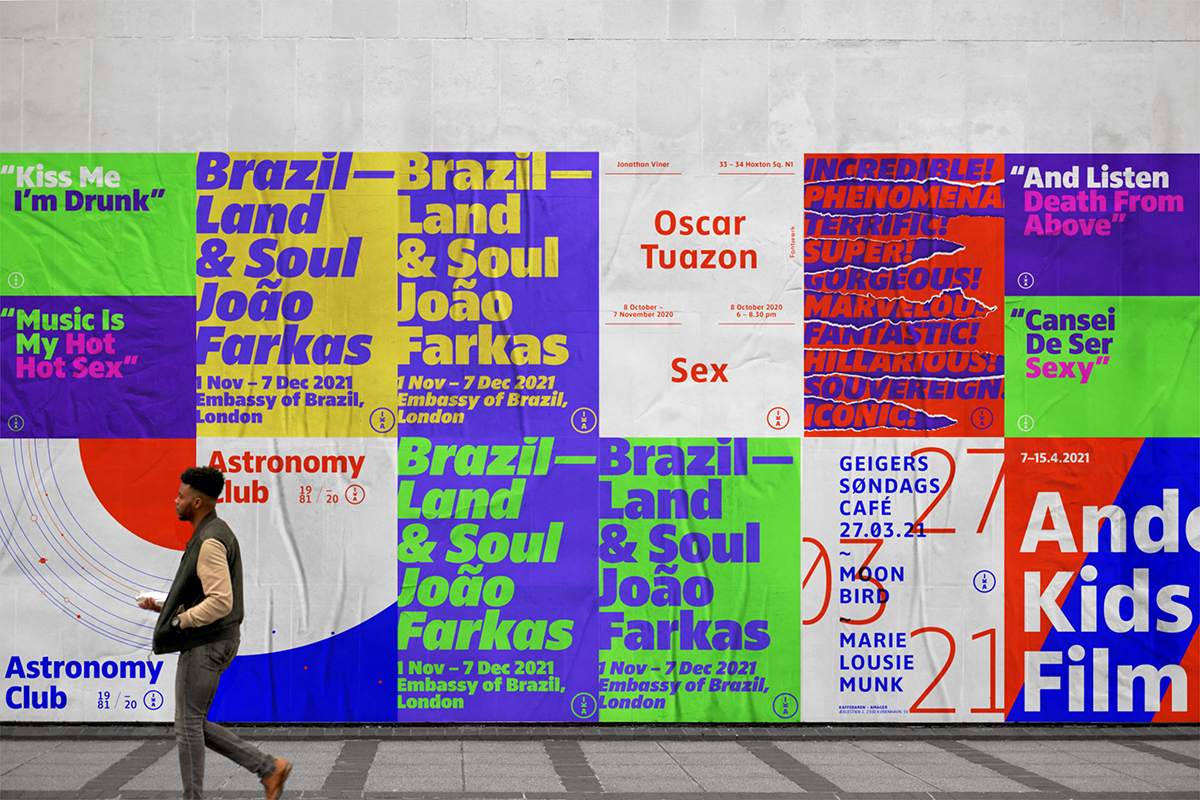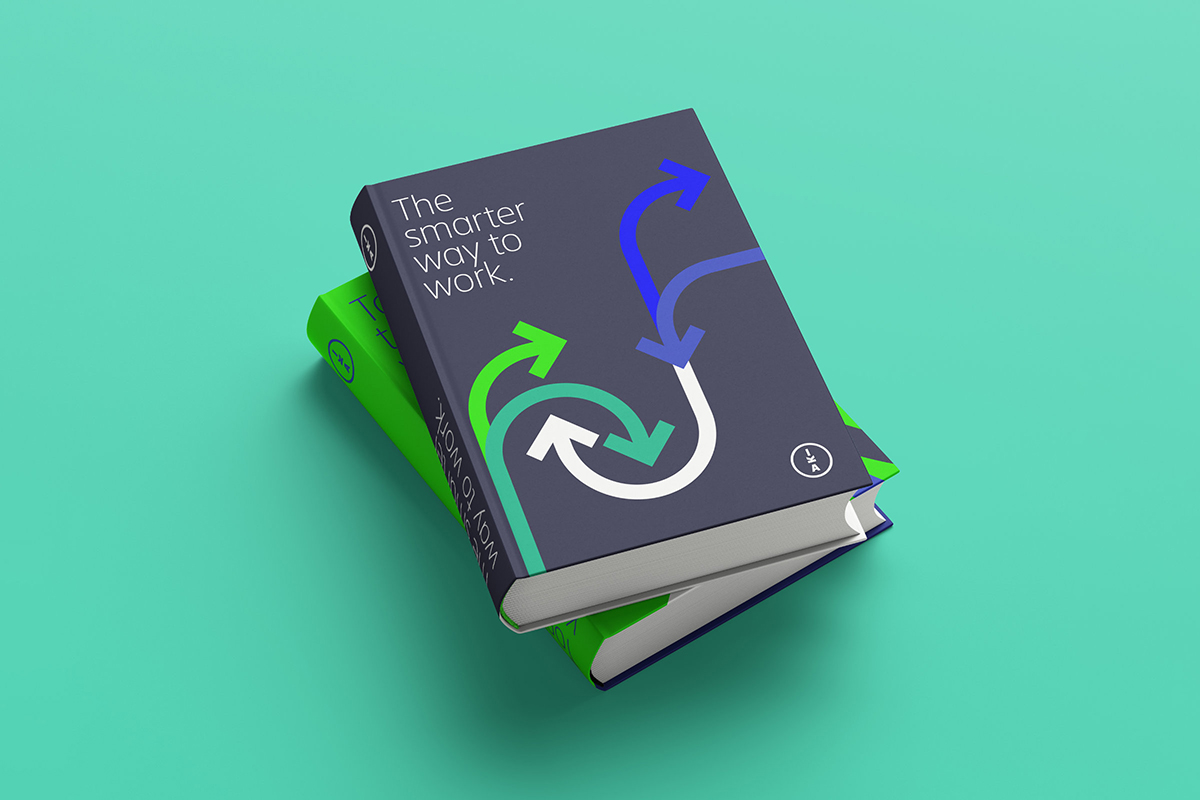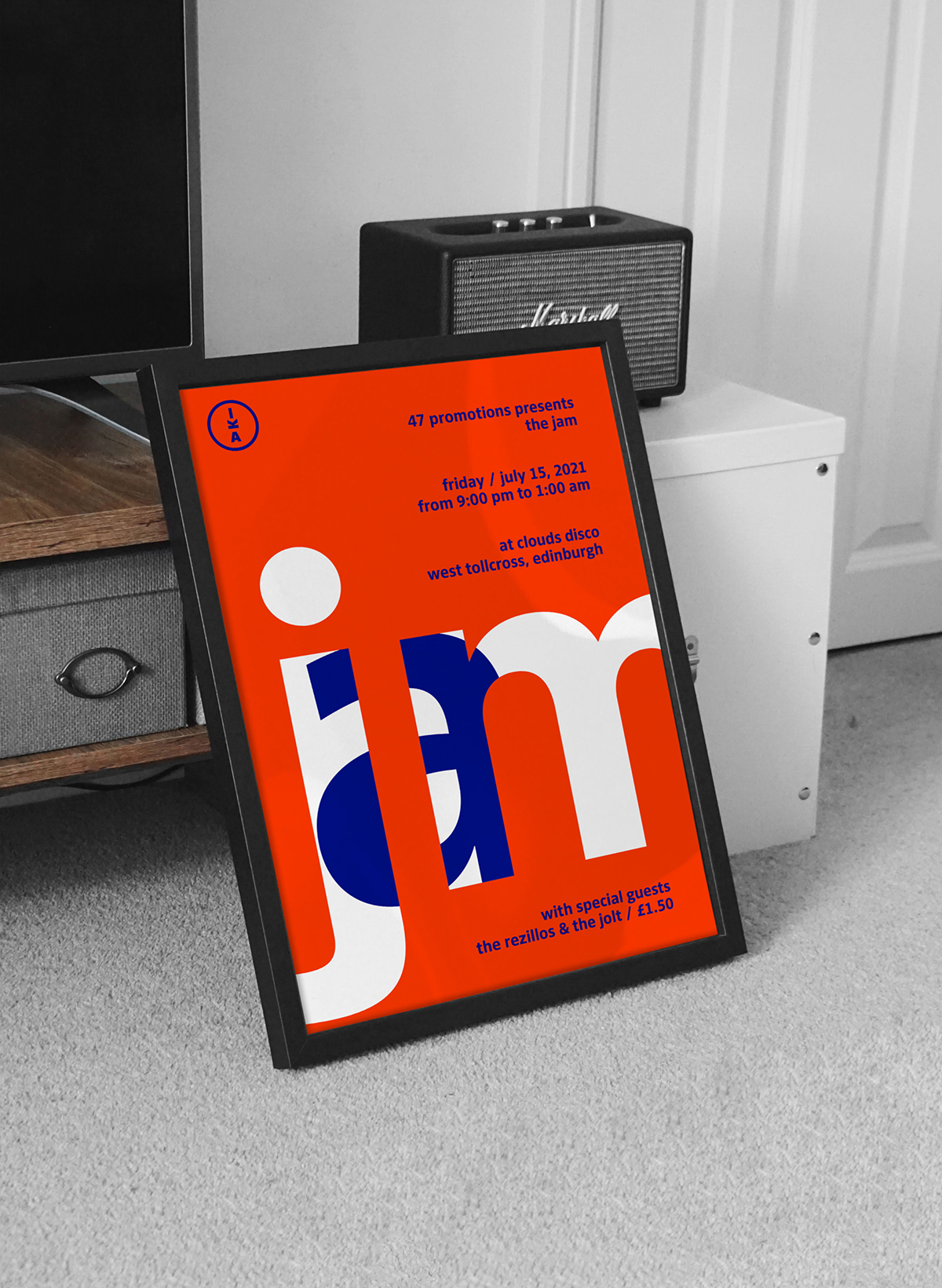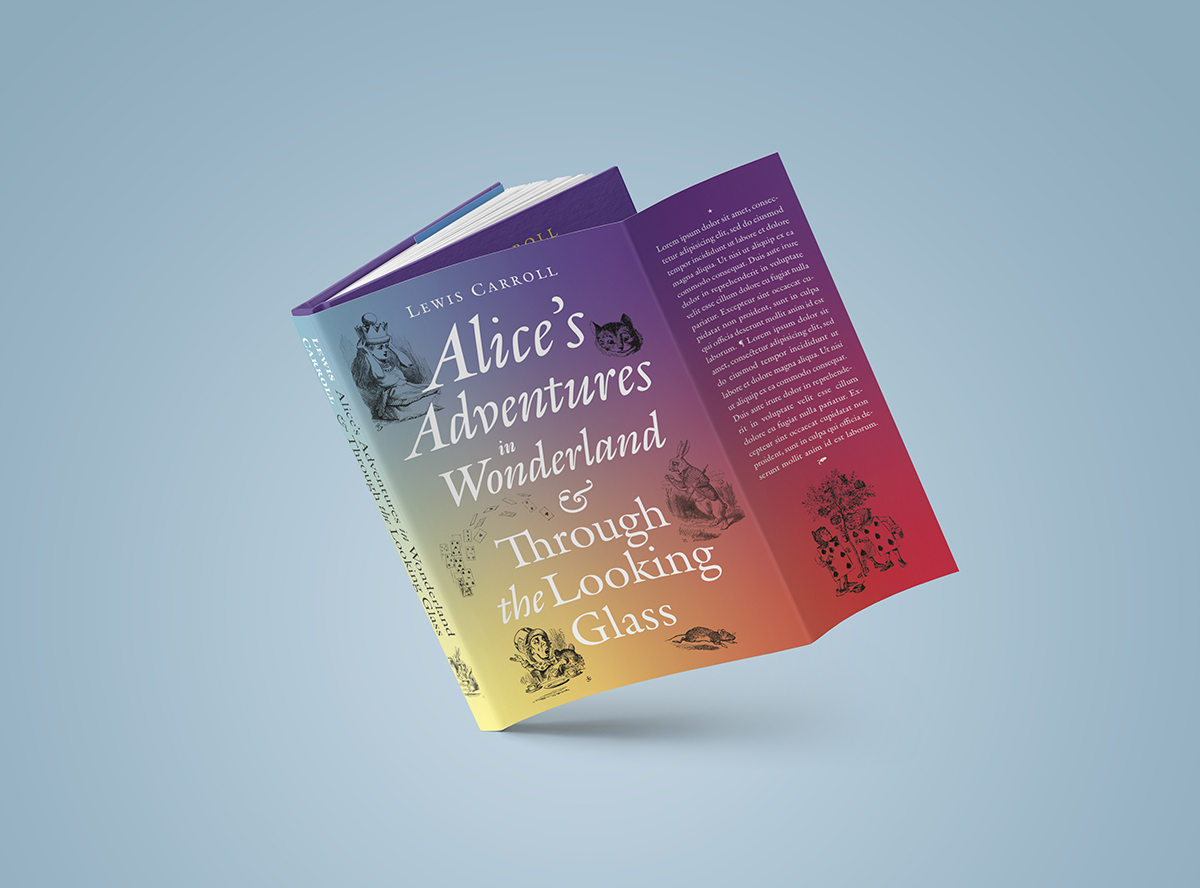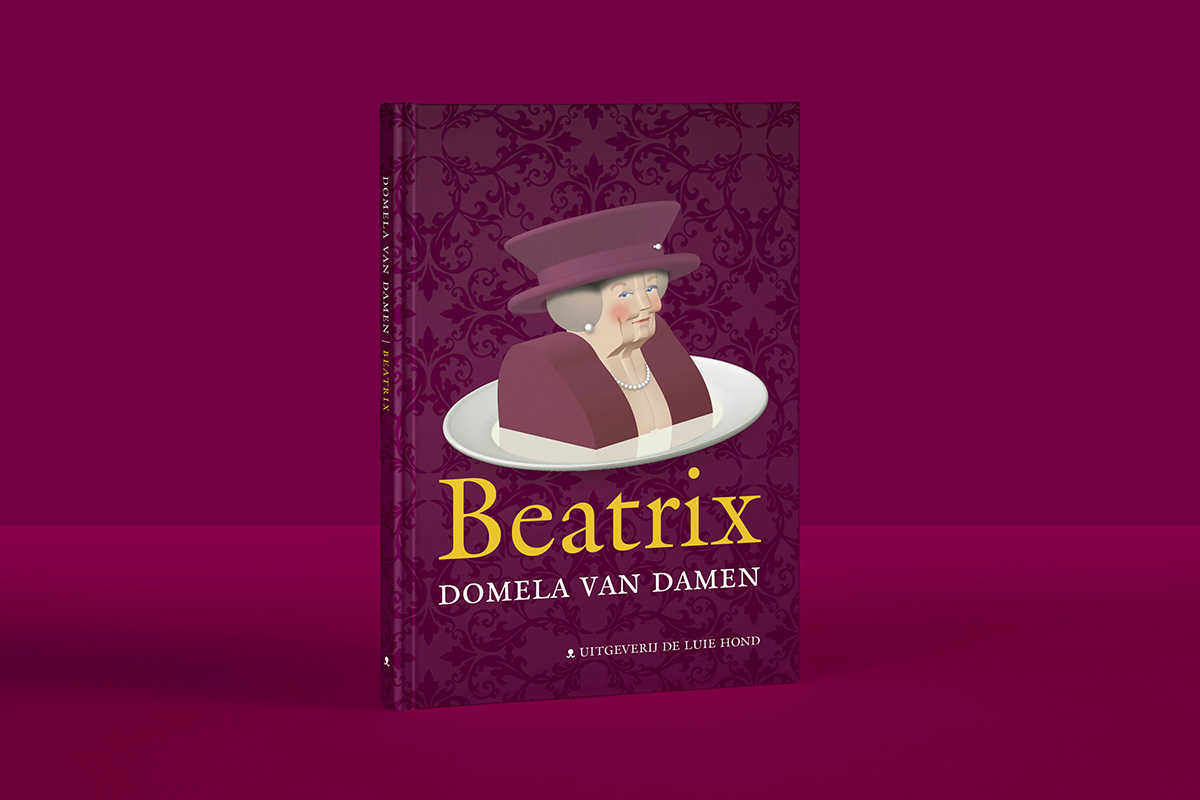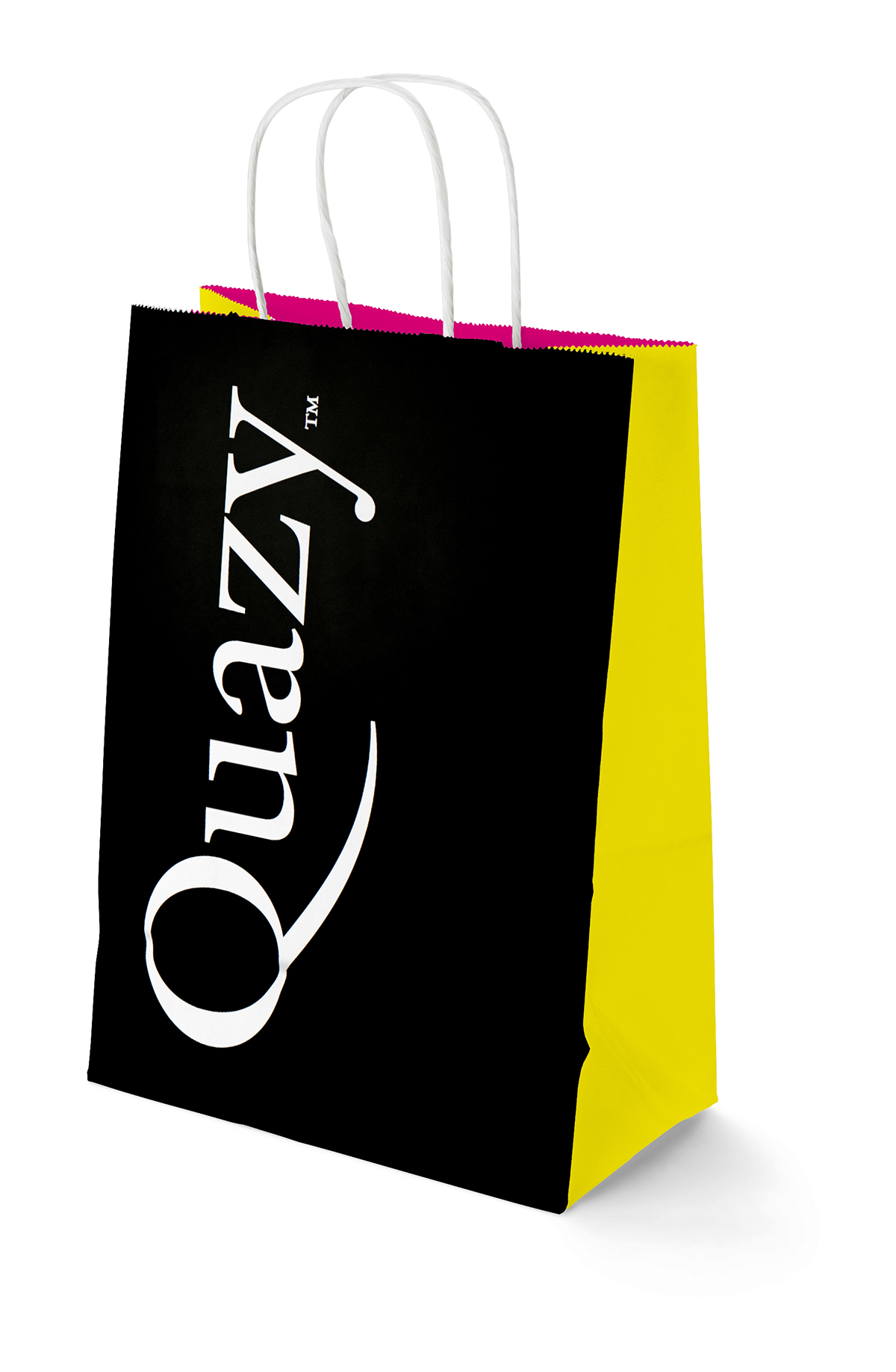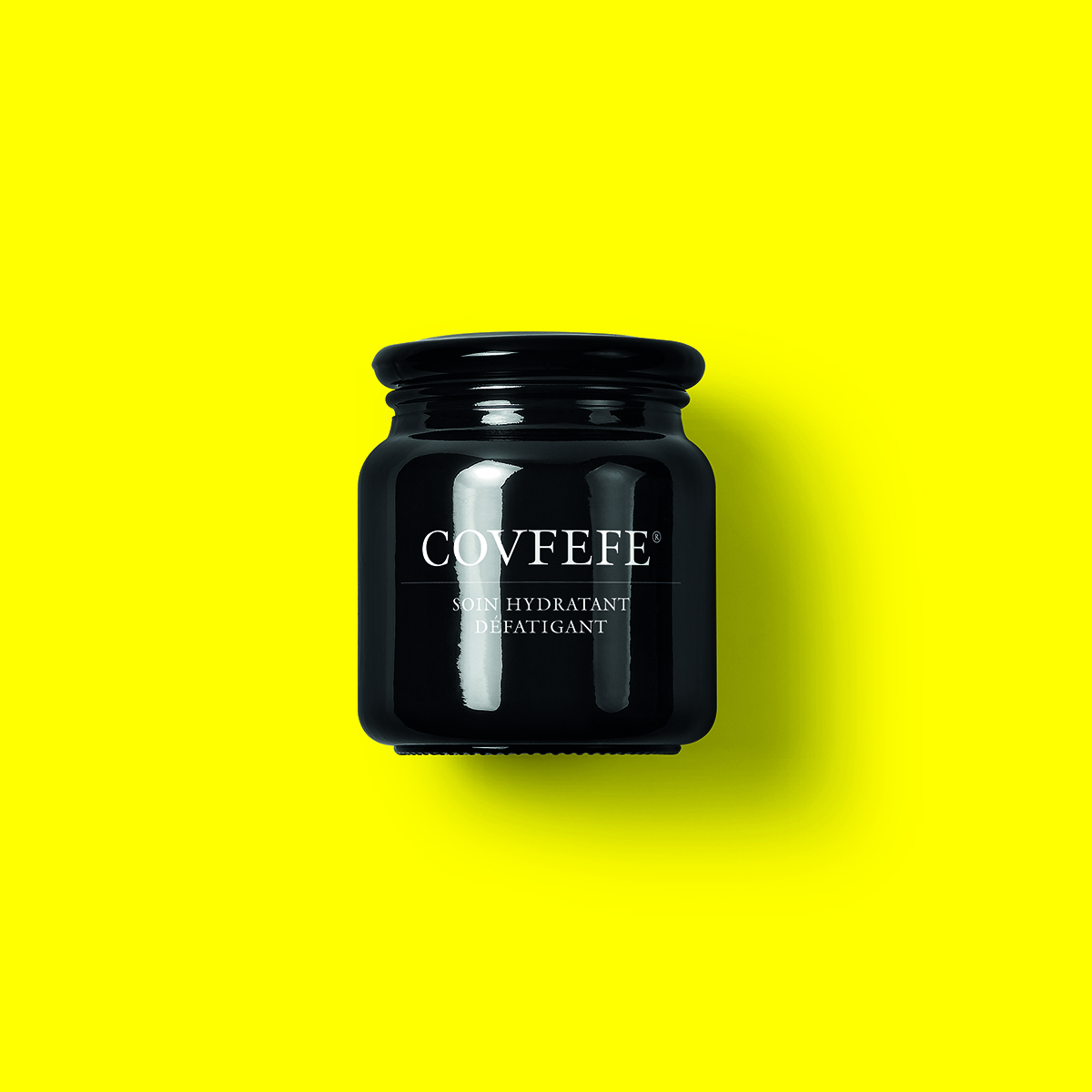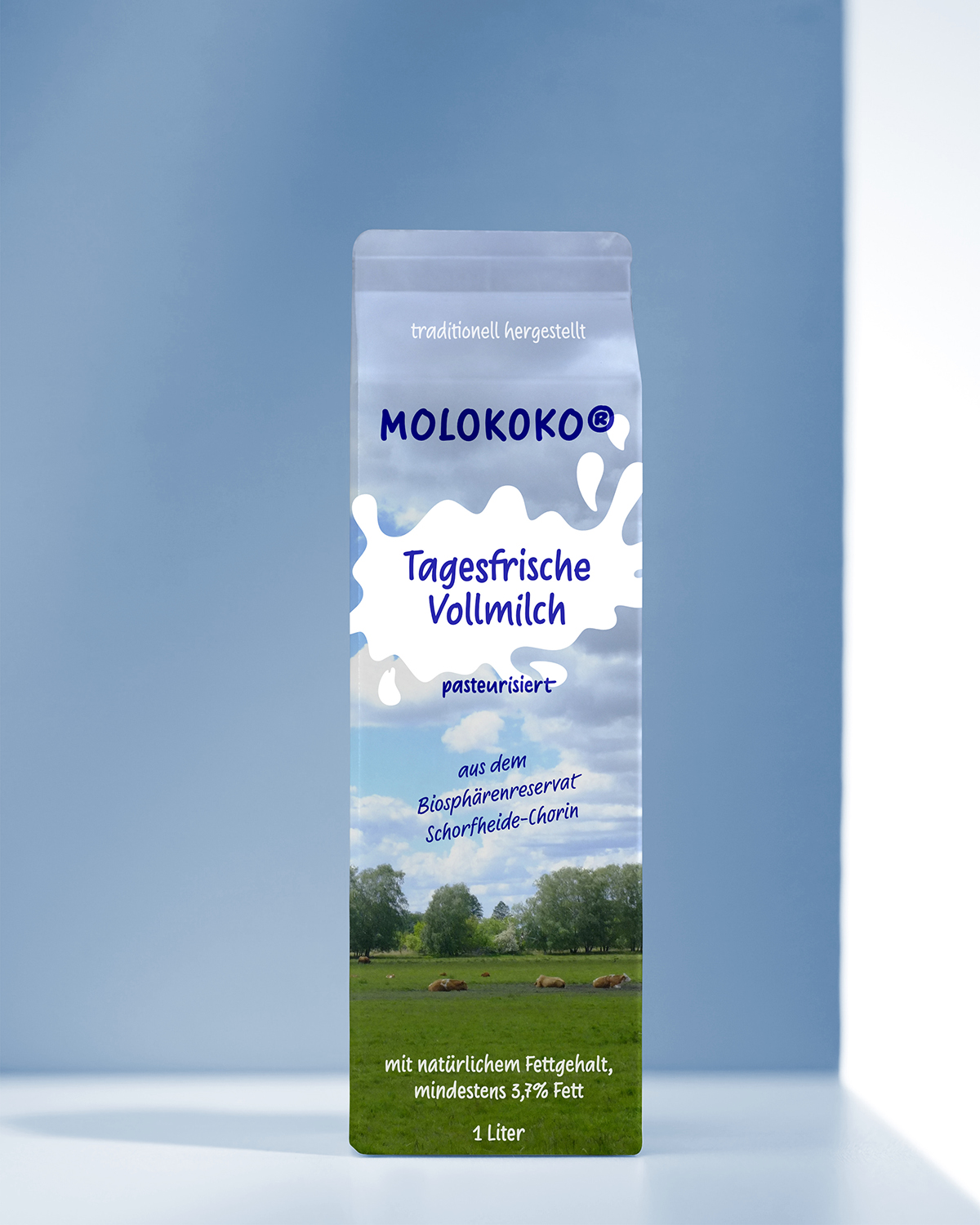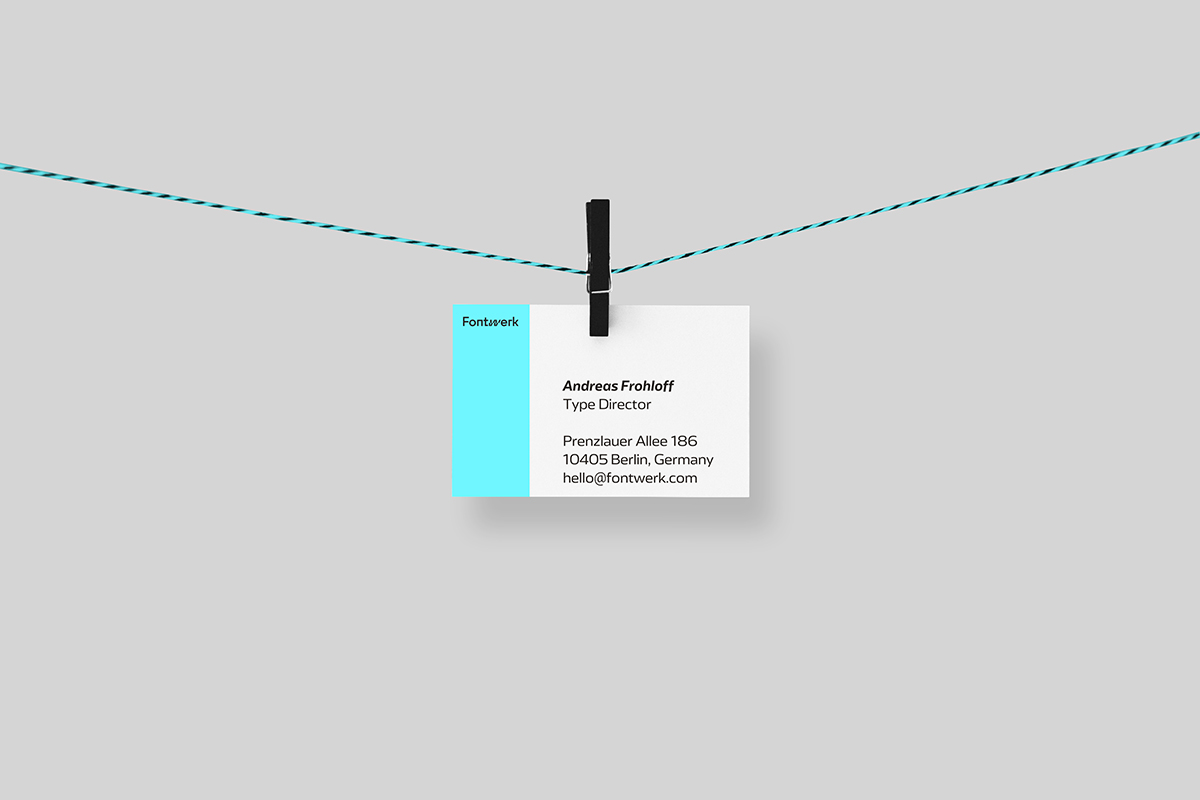
Fontwerk font foundry
Fontwerk is a digital font foundry and provider of type services. They represent the typographic work of top designers from around the world and counting. In Fontwerk believe that convincing communication is only possible with the most aesthetically pleasing and most technically sound fonts. Their vision is to provide easy access to such fonts through free trial versions, a simple licensing model and one of the fastest ordering processes around.
Ivo Gabrowitsch, founder and managing director during his years as Marketing Director at FontShop and Senior Director of Marketing at Monotype, learned about agencies, designers, and brands’ needs for modern typefaces and innovative font engineering and type design services. The engineering parts includes font mastering, production, colour fonts and variable fonts, the design part includes custom typeface design, including language extensions, but also logo design services and calligraphy workshops. In general, there’s a lot of FontShop DNA included in their label.
Most of Fontwerk’s typefaces have very interesting background stories (e.g. Supermarker’s use of intelligent tricks (its name is a combination of supermarket and marker), Romaine’s age (450 years old!), Pangea’s approach to make the world a better place or Nikolai’s origination process). Fontwerk’s nine designers are a very diverse group from all over the world. Their upcoming next release will be a new family from none other than Erik Spiekermann (together with Anja Meiners and Ralph du Carrois). For more information about Fontwerk please visit the Fontwerk website.
Supermarker
Romaine
Cover studies
Logo Design Studies
Pangea
Nikolai
Ino
Turbine